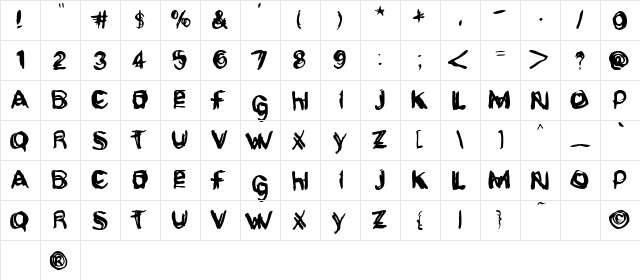
Gritzpop Grunge
| Style | Grunge |
Design Context for Gritzpop Typeface
Gritzpop trades polish for personality, using distressed and eroded forms to bring grit and attitude to creative work.
Suited to punk-influenced zines, underground music branding, streetwear, and raw, anti-corporate design.
Pro Tip: Pair Gritzpop with intentionally raw or lo-fi design elements. Fighting against it with overly polished surroundings will undermine its personality.